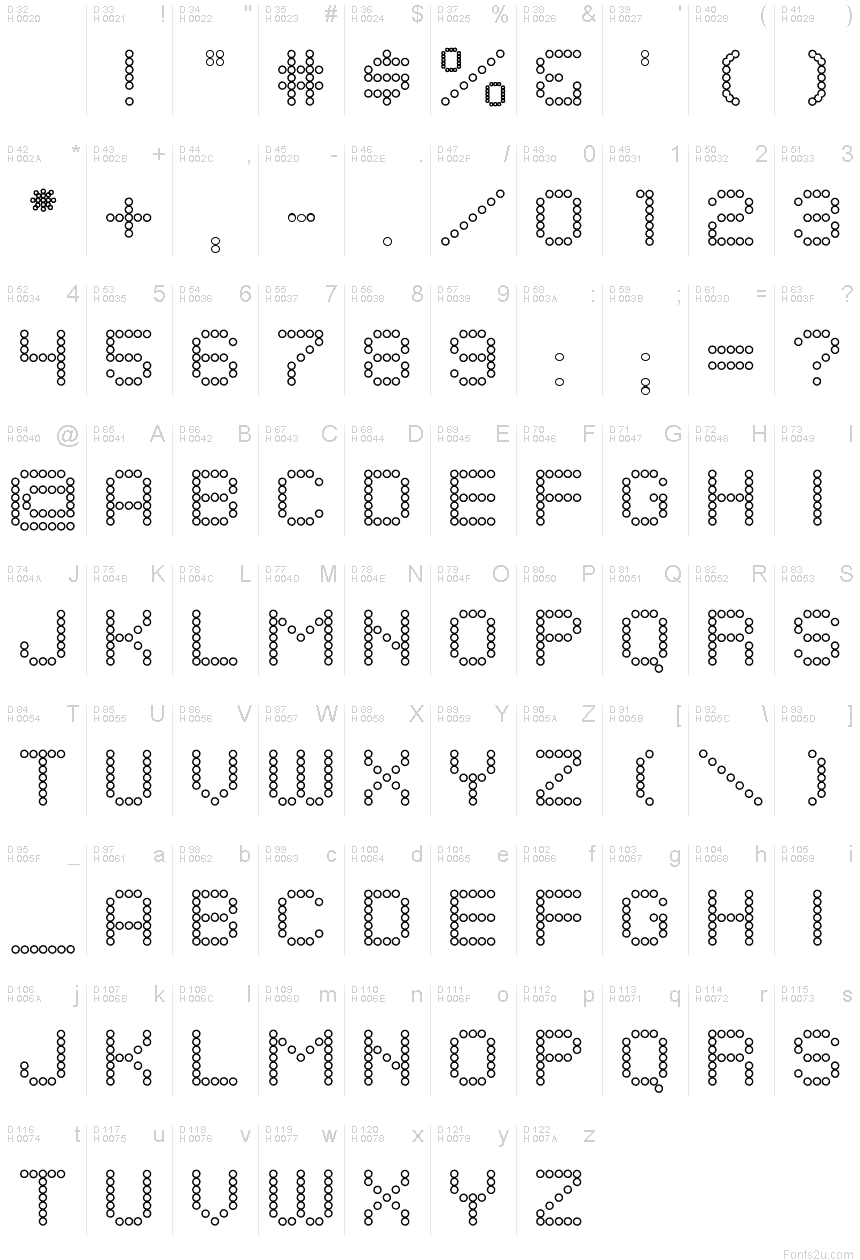
Dots All For Now Open JL
Dots All For Now Open JL font by Jeffrey N. Levine feels like a marquee sign rendered in neat, hollow dots—crisp circles marching in tidy rows with plenty of air between them. It is a free digital dot-matrix font, giving you that LED/scoreboard texture without the mess of distressed effects or faux glitches.
Using Dots All For Now Open JL, your type instantly reads as electronic: great for arcade-style titles, sci‑fi UI mockups, event posters, tech branding, music/album art, scoreboard graphics, stream overlays, and merch hits. Keep it large so the dotted rhythm stays clear, and pair this free font with a clean neutral sans for any supporting text.